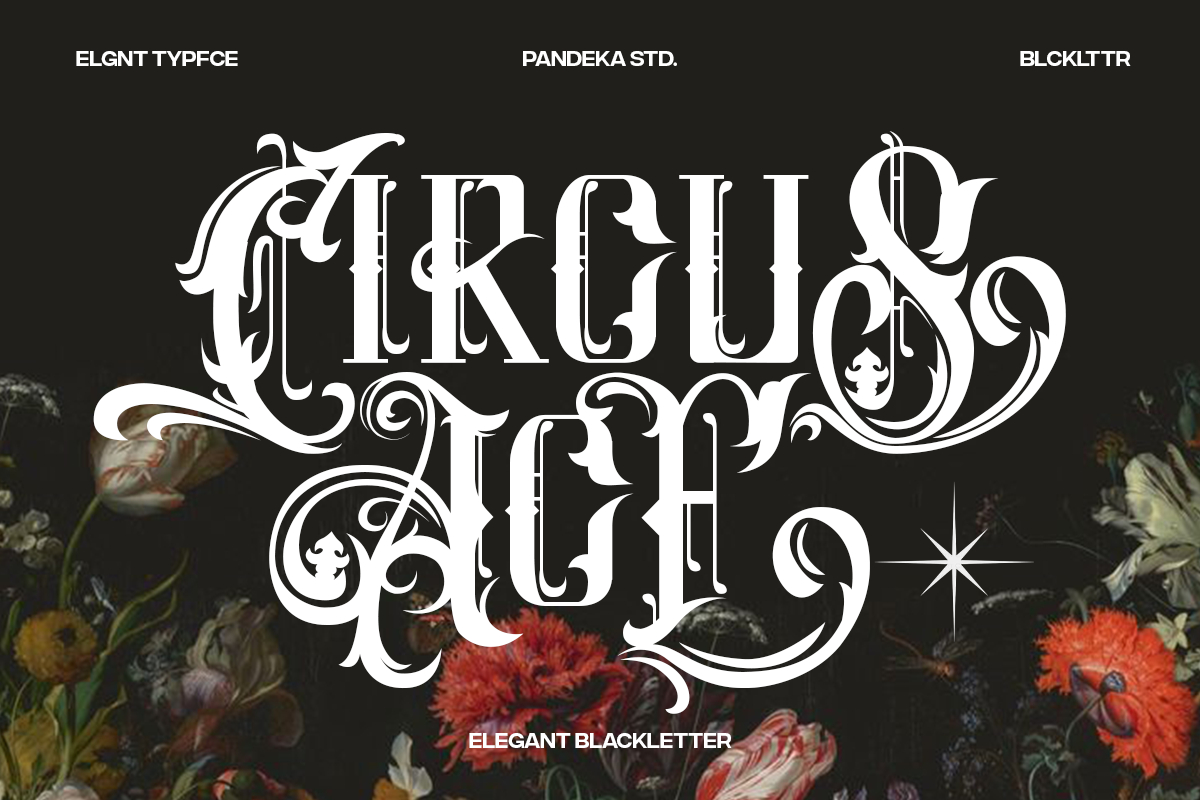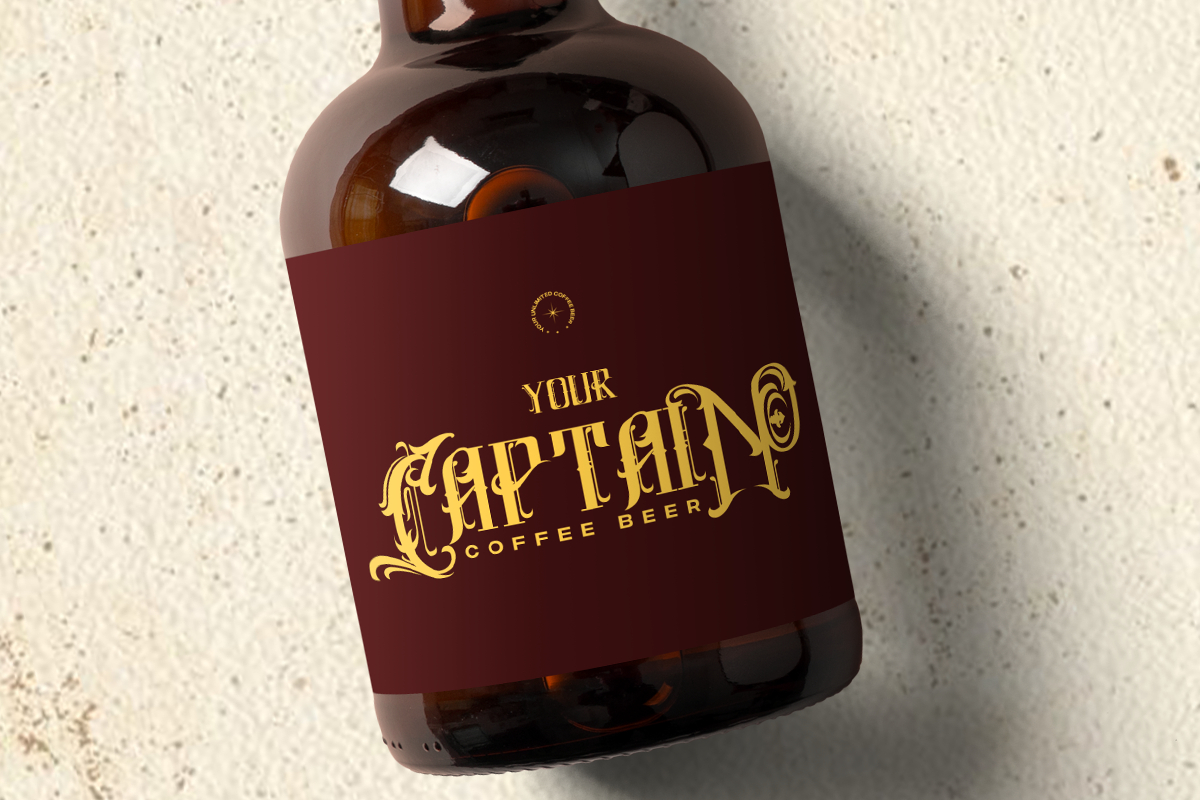
About Circuse Age Font
Circus Ace is a font inspired by the Blackletter typeface, made with a modern impression but still looks strong and unique. Supported by alternative options such as swash, ligature, and alternative characters, making Circus Ace Typeface Blackletter very easy to create designs with strong or dark themes.
Circus Ace Typeface is very suitable for use in making music album cover designs, tattoo logos, whiskey labels, packaging pomades and so on which are made with blackletter concepts.